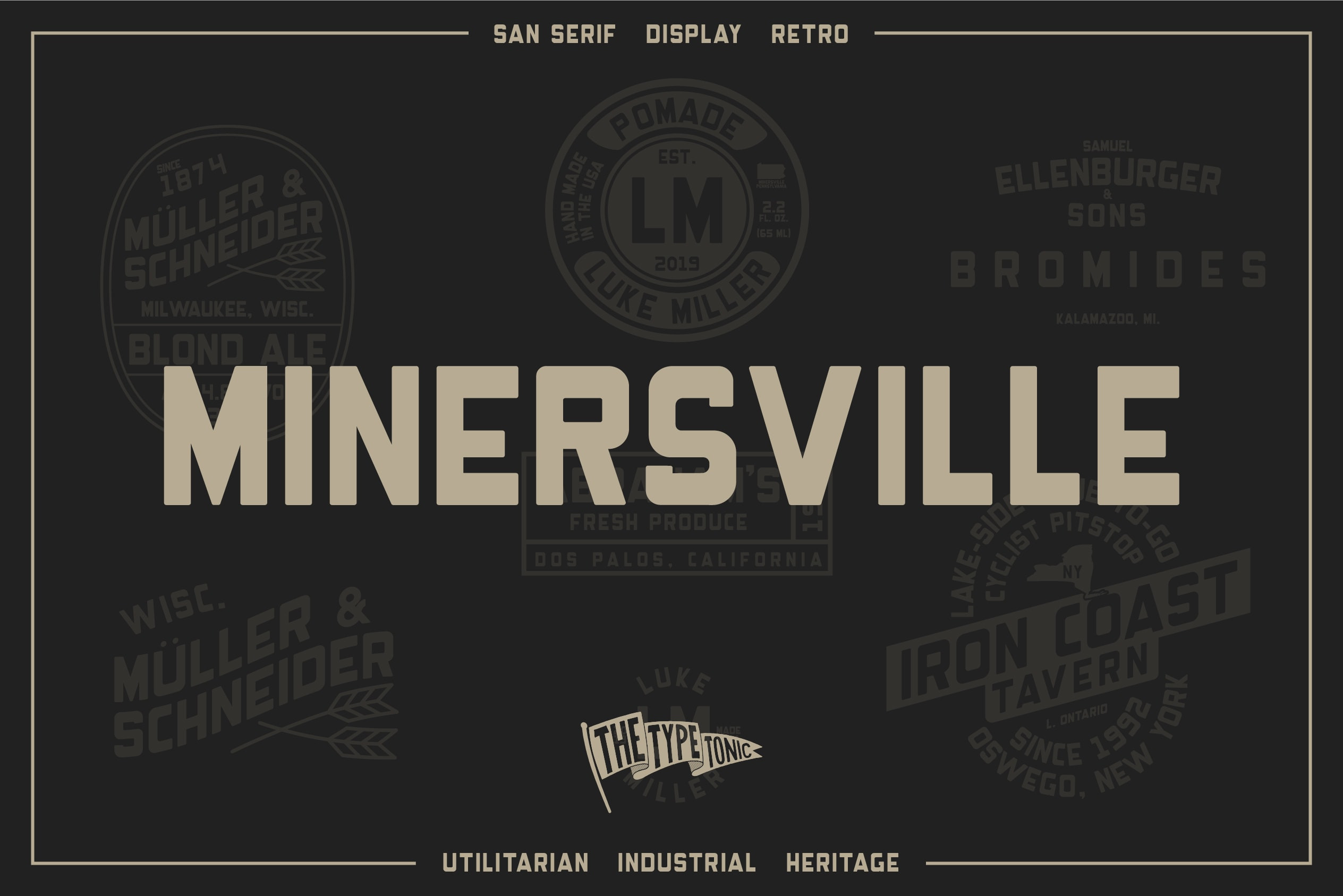
Minersville Font
Minersville is a font stripped from a 100+ year old wooden box and expanded into a full character set. Its mono thickness, slightly rounded corners, and utilitarian design lend well to rustic, aged, and industrial applications. Offered in regular and oblique.